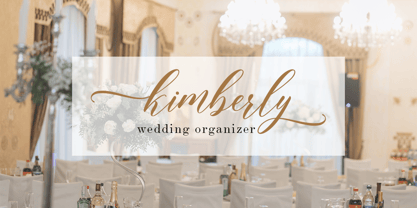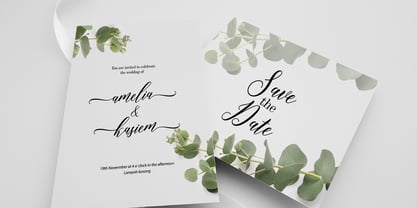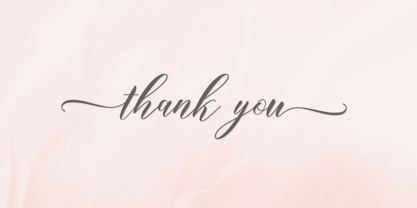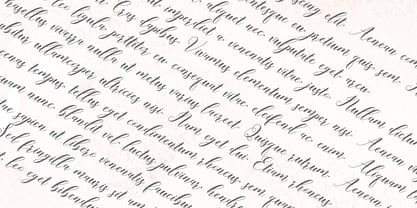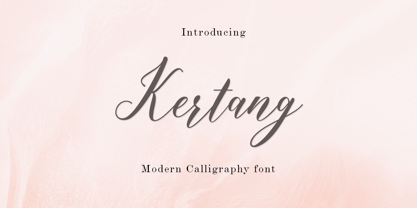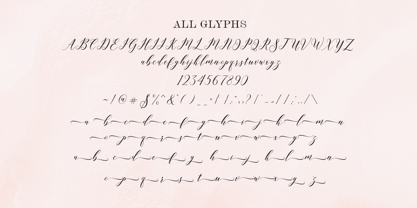
Kertang
by Amarlettering
The Kertang Font Family was designed by Amar Lettering and published by Amarlettering. Kertang contains 1 styles.
Introducing Kertang, a harmonious blend of delicacy and elegance rendered as a contemporary script font. Its slender letterforms come alive with fluid strokes and understated curves, crafting a sense of finesse and refinement. Kertang is an ideal choice for projects demanding a touch of class and chic sophistication, making it a go-to choice for wedding invitations, upscale branding, or high-end editorial design.